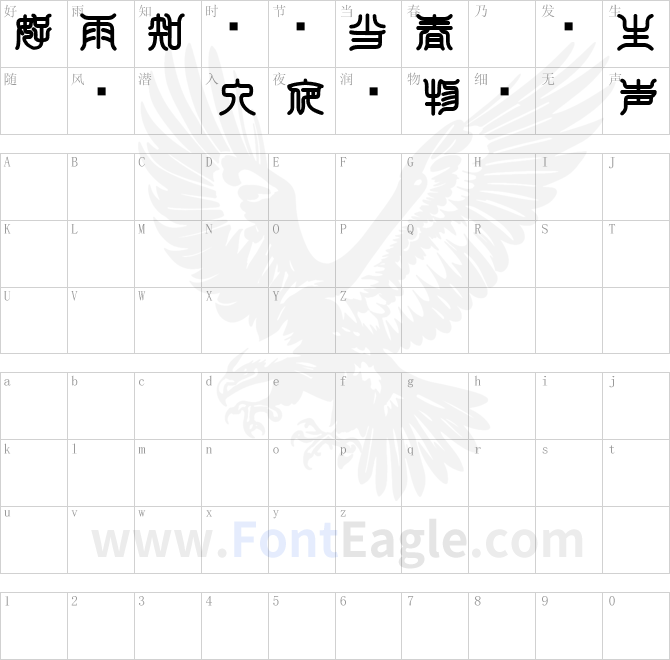
白舟印相体教漢 HakusyuInsoutai_kk is a great font, widely used in graphic design, single-page menu design, poster design and other fields, and is deeply loved by designers.白舟印相体教漢 HakusyuInsoutai_kk download.